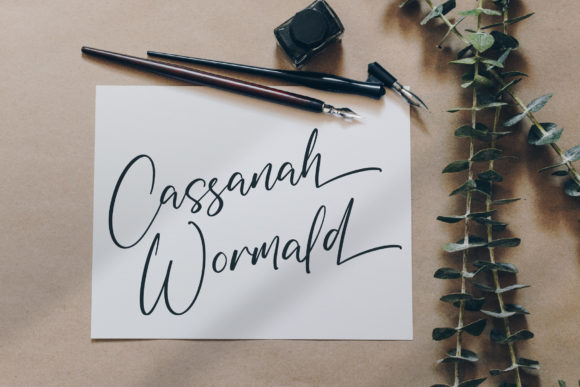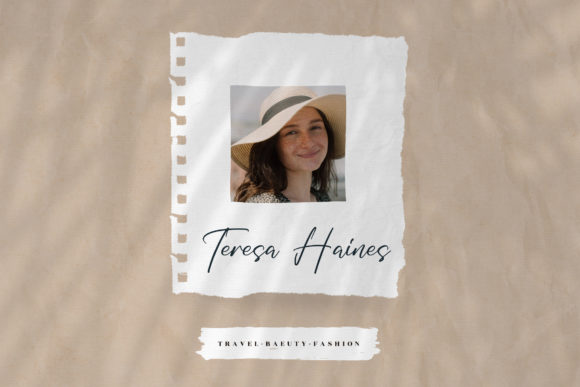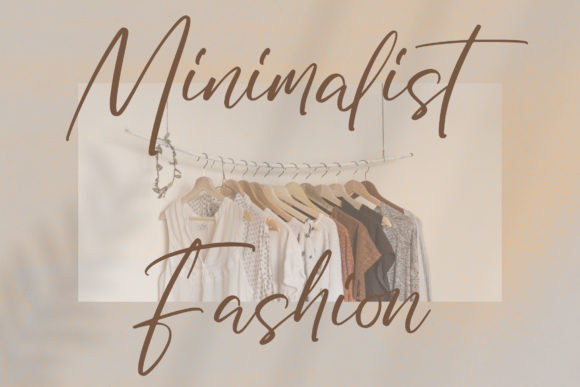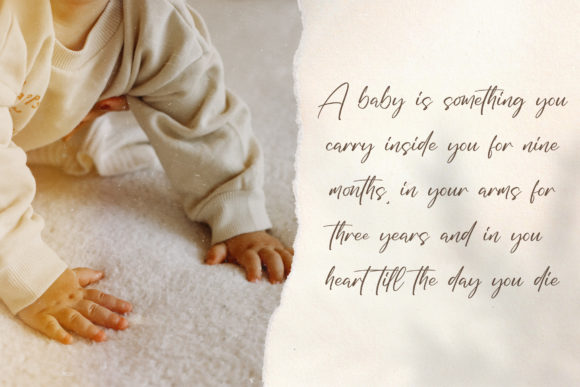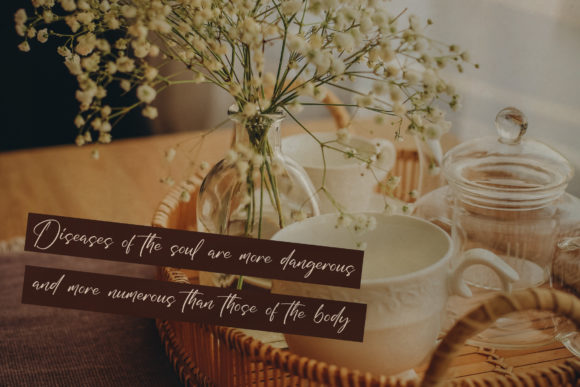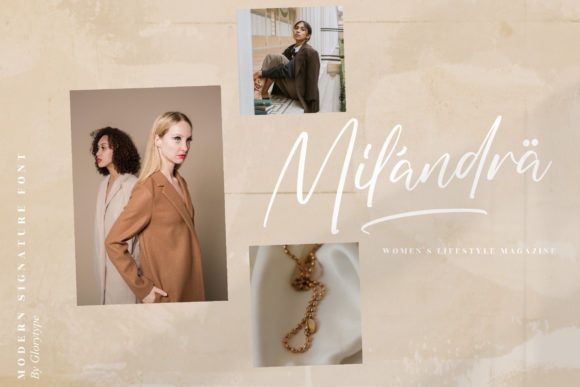
Introduction to Millanoh Font
Millanoh is a beautiful calligraphy typeface with characters that dance along the baseline.
Key Features of Millanoh Font